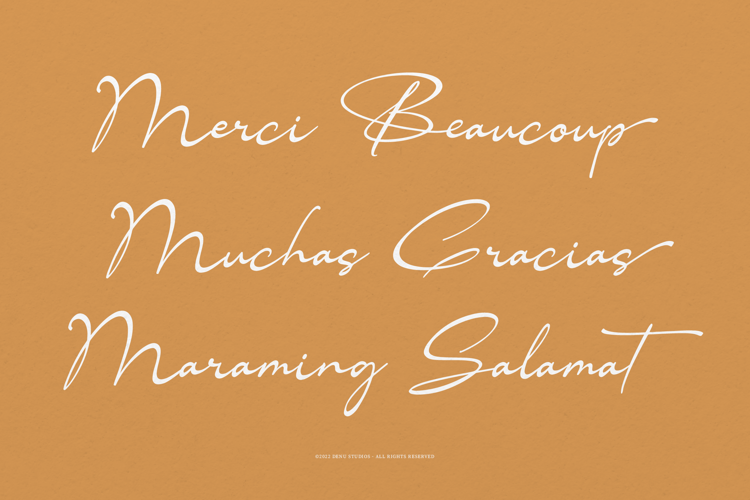
Huglo Pancy Font
About Huglo Pancy Font
Huglo Pancy | Handwritten Signature product packaging, mugs, quotes, posters, shopping bags, t-shirts, book covers, name card, invitation cards, greeting cards, label, photography, watermark, special events, and all your other lovely projects that need a Handwritten Signature taste.